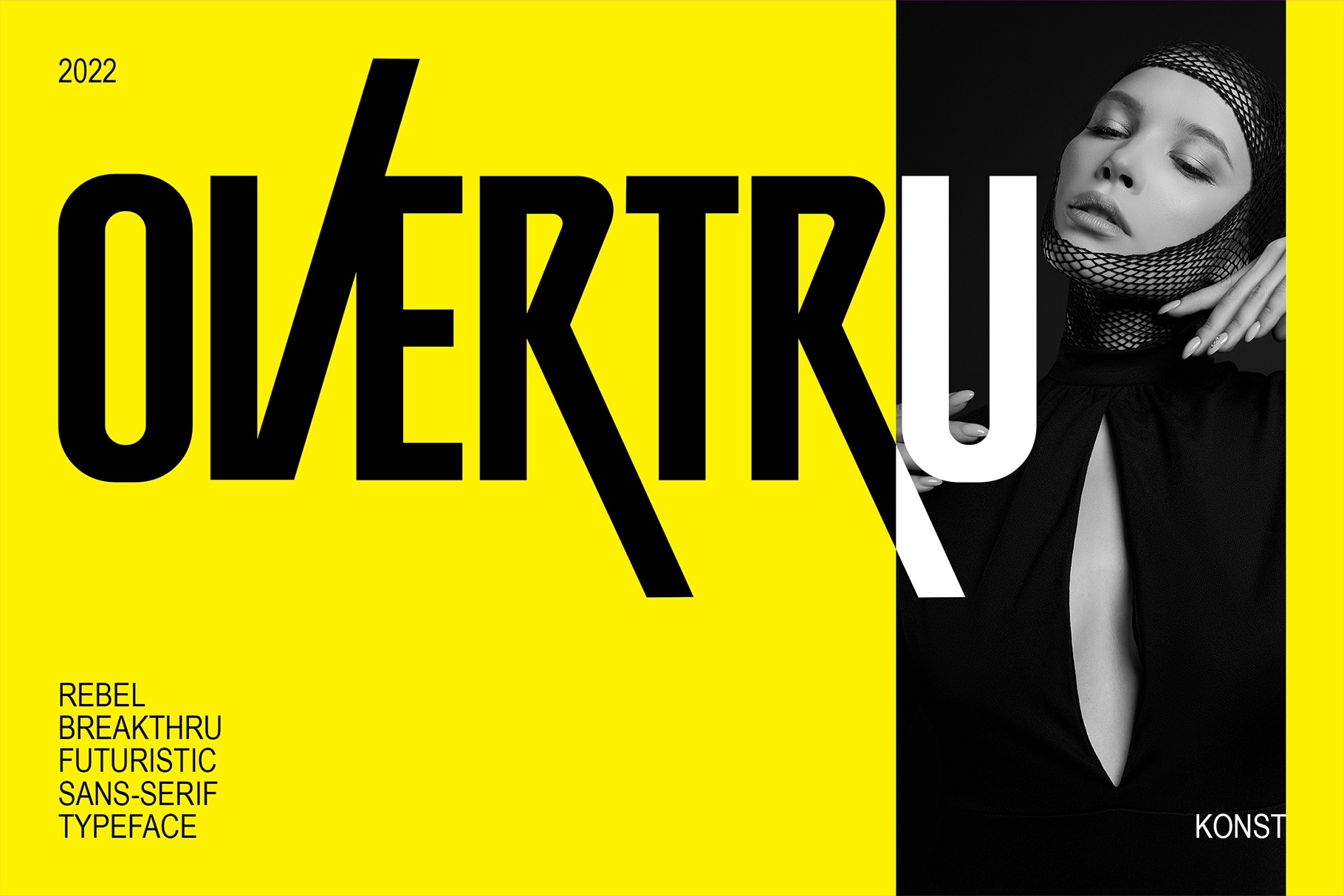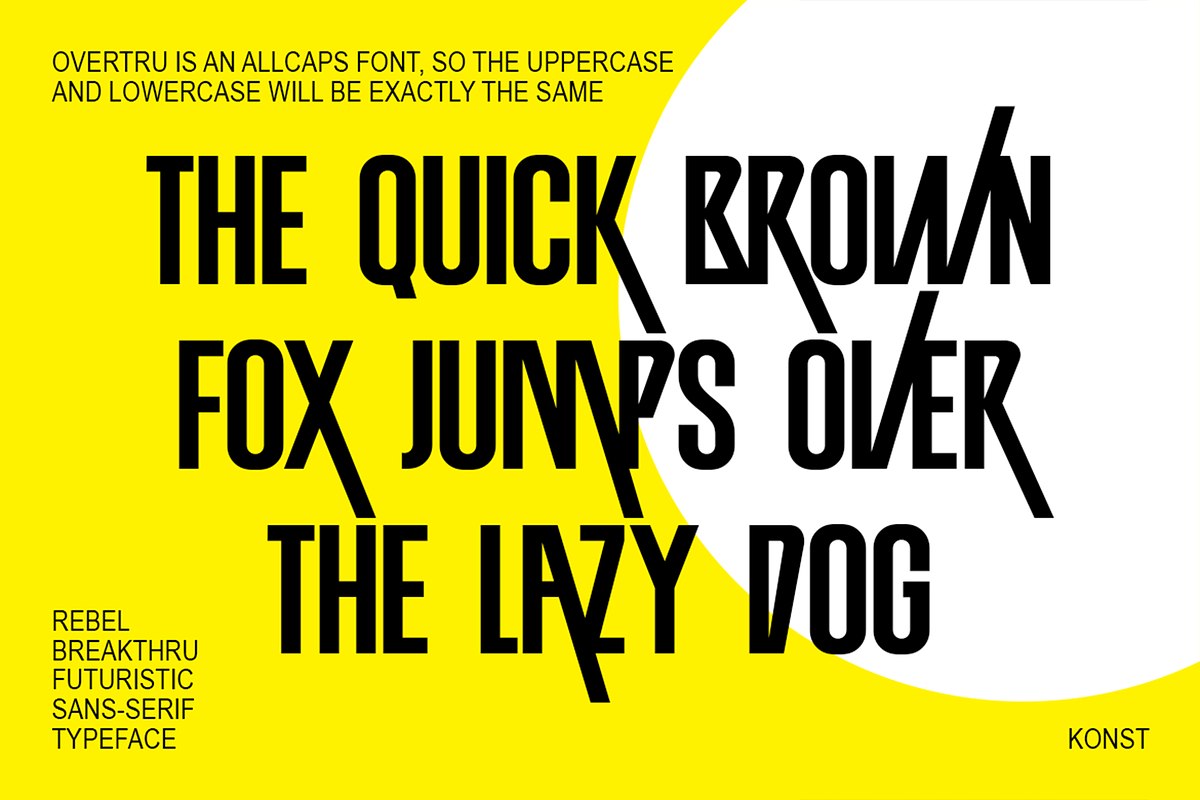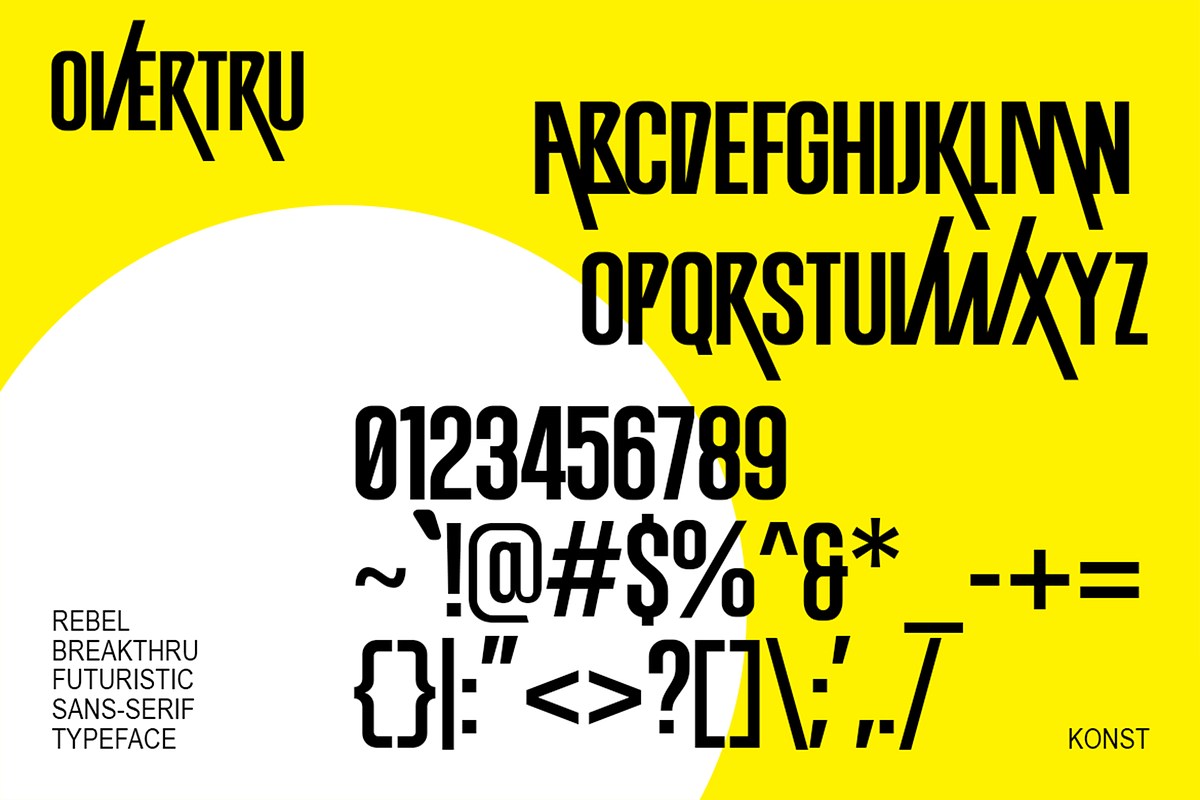
Overtru – Experimental Fonts
OVERTRU is a definition of a rebel statement in a form of fonts. To double up your loudness in a visual way.
Perfectly fit for the poster, brand campaign, futuristic theme design, logo, esport branding, scream out loud.